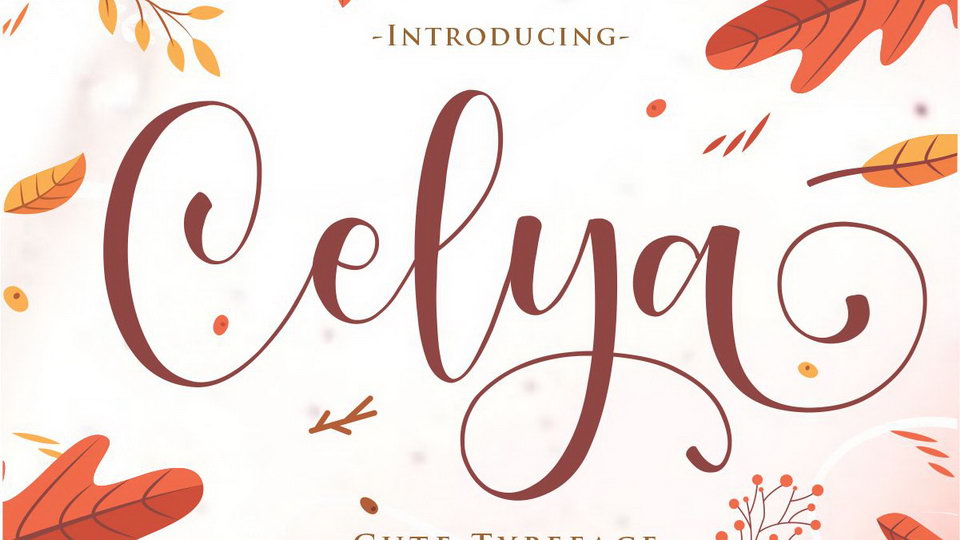
Download Celya font, a lovely modern calligraphy script with bouncy flow. Celya’s handwritten style makes perfect to use for invitation, stationery, wedding designs, social media posts, advertisements, label, photography,
Designer: Gilar Studio